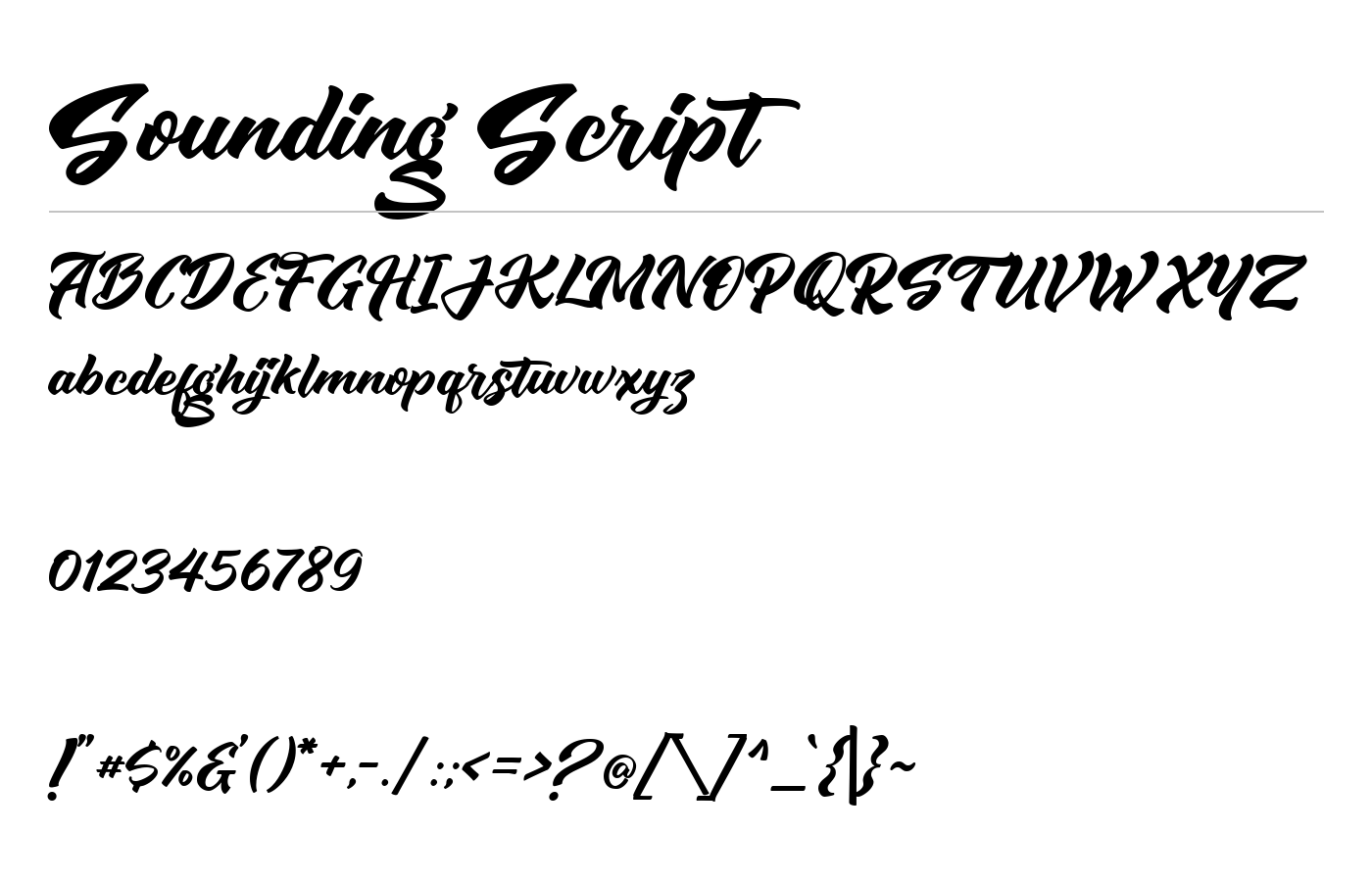
Sounding Font
Sounding Font is a Script typeface, perfectly suitable for creating quotes, sport, lifestyle design such as logos, title, and magazine, and more. This free typeface was designed by talented Type Factory. If you like it don’t forget to check out the full version.